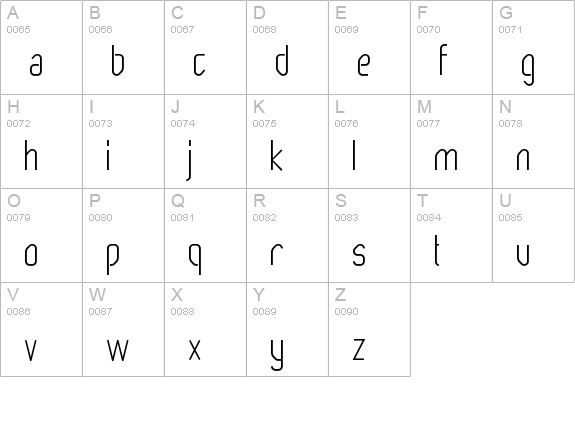
Paperclip Medium is a balanced, medium-weight variant in the Paperclip typeface family \xE2\x80\x94 well suited to sub-headlines, navigation, and balanced editorial work.
Paperclip Medium font is a modern and versatile typeface that adds a touch of sophistication to any design project. With its clean lines and contemporary style, this font is perfect for creating eye-catching headlines, logos, and branding materials. The medium weight of the font strikes the perfect balance between being bold and elegant, making it suitable for a wide range of applications. Best of all, Paperclip Medium font is available for free download at FontsMarket.com. Whether you're a professional designer looking for a new go-to font or a hobbyist experimenting with typography, this font is a must-have addition to your collection. Download it today and elevate your designs with the sleek and stylish Paperclip Medium font.